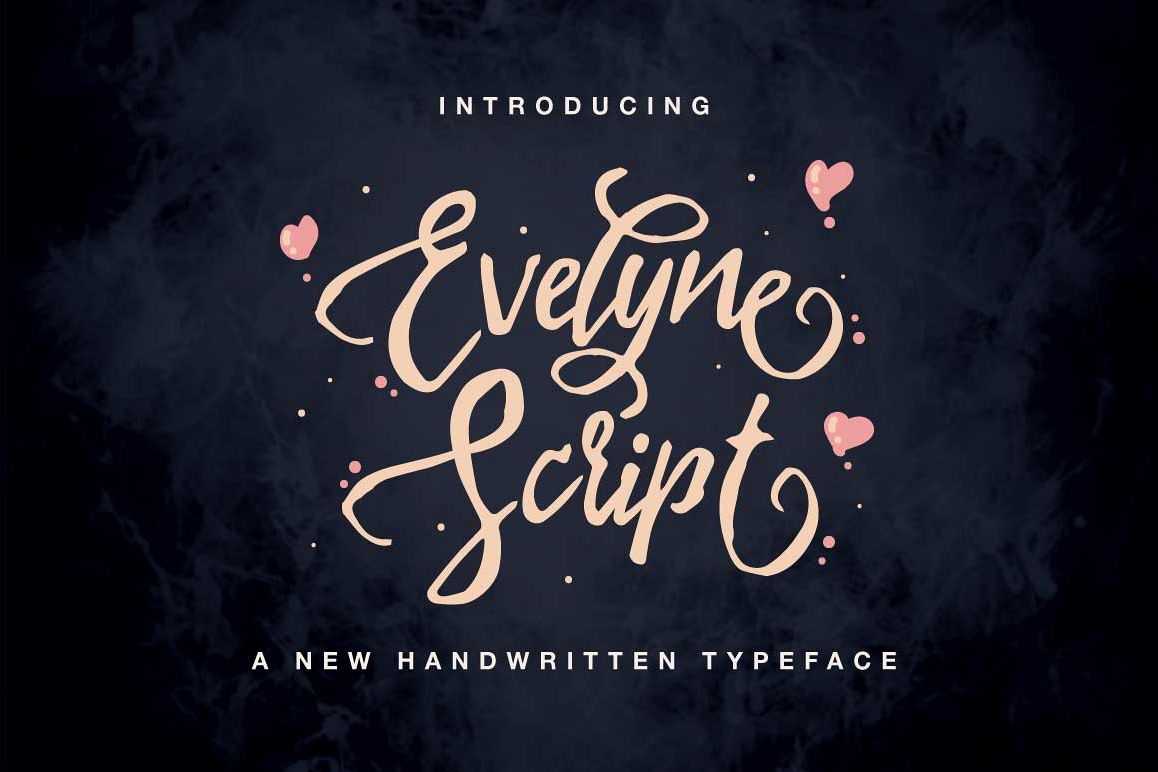
Evelyne Script
?? --- Queentype Introducing : Evelyne Script Typeface --- ??
Evelyne Script Typeface is a beautiful A New
Handwritten Typeface Style give the Unique looks. Alternate character
Great for Apparel Brand, Logos, printed quotes, invitations, image
overlays, greeting cards, product packaging, text headers, any greeting
cards, book cover, Painting design style, or any design that needs
natural and personal touch & whatever else your imagination holds!
Mix and match the alternate characters to add an attractive message to
your design.